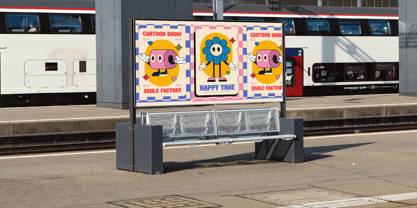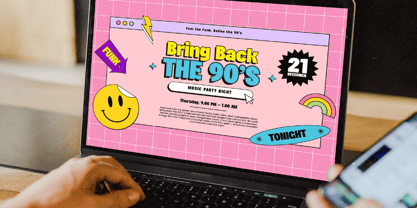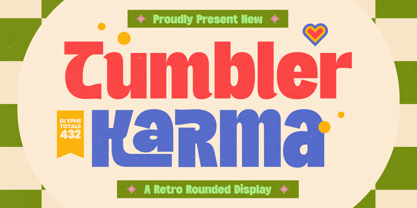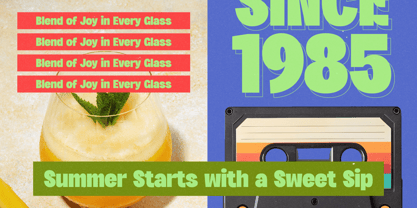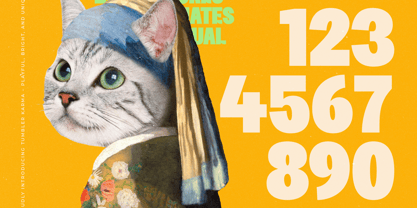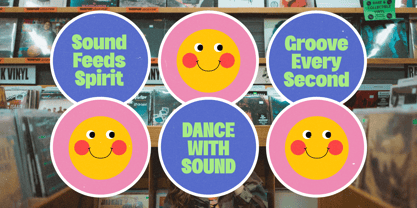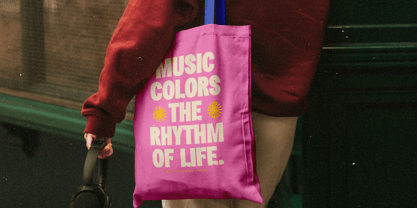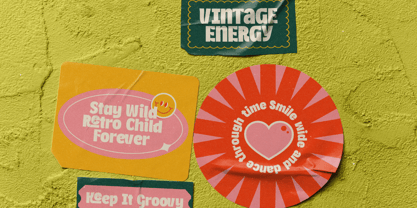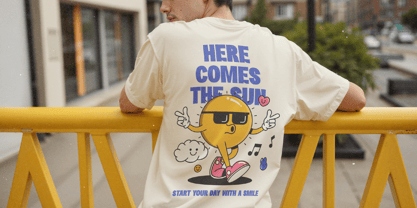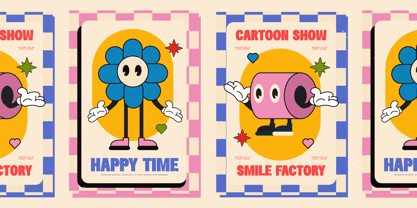
Tumbler Karma
by Timelesstype Studio
The Tumbler Karma Font Family was designed by Heru Utama Putra and published by Timelesstype Studio. Tumbler Karma contains 2 styles and family package options. More about this family
Tumbler Karma - Retro Rounded Display , from Timelesstype , Suitable for any projects such as: logos, branding projects, homeware designs, product packaging, mugs, quotes, posters, shopping bags, t-shirts, book covers, name card, invitation cards, greeting cards, label, photography, watermark, special events, and all your other luxury and beautiful projects that need a Luxury Serif taste.
Foundry: Timelesstype Studio
Tumbler Karma